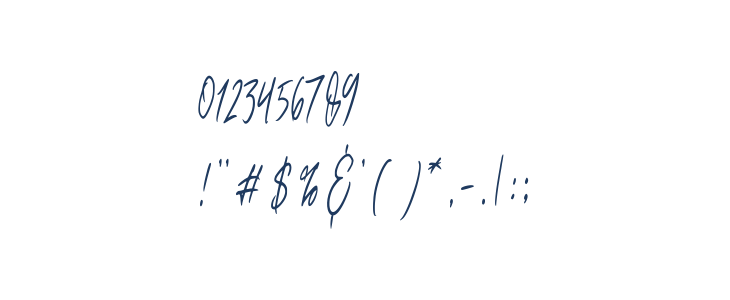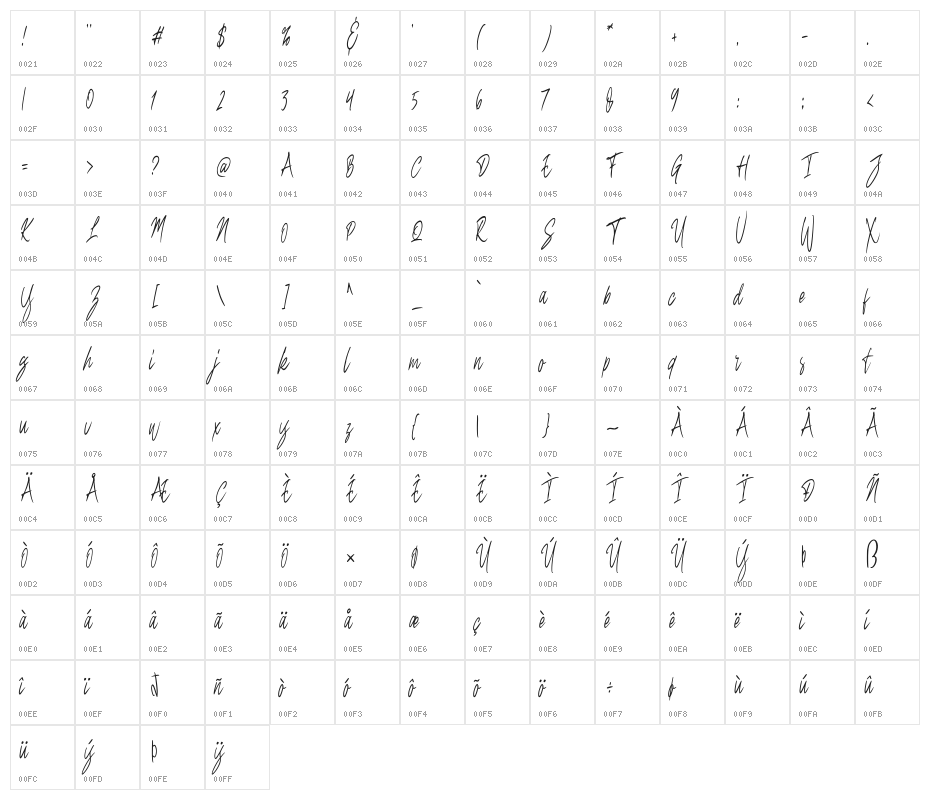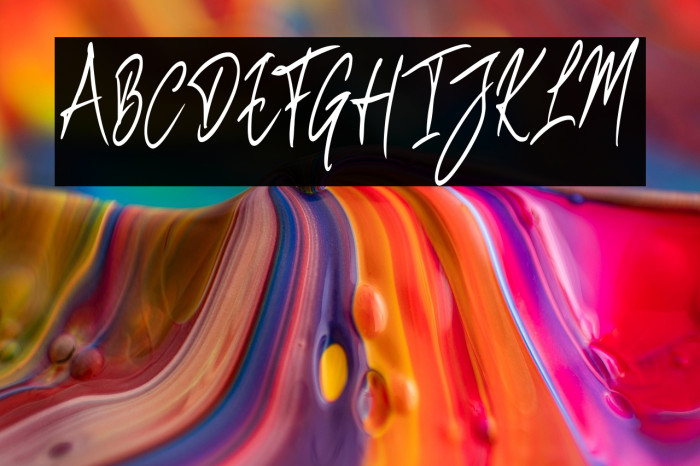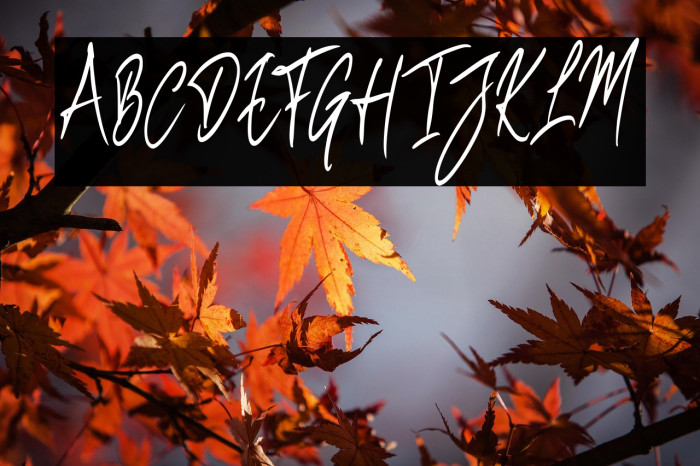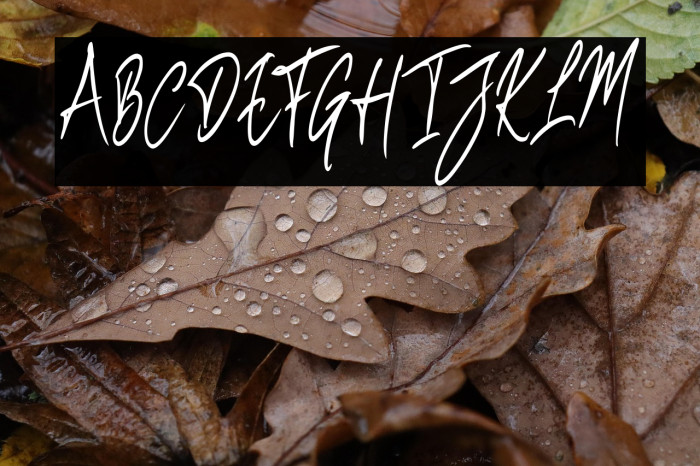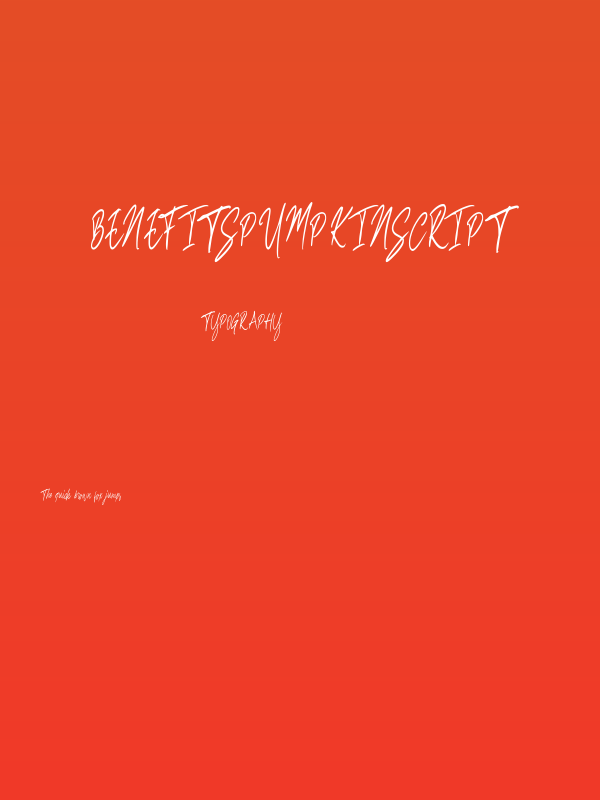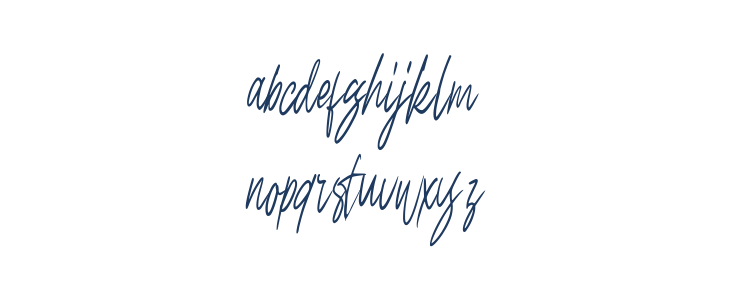
BenefitspumpkinScript Font
BenefitspumpkinScript Description
This font features a dynamic and fluid script style, characterized by its elegant and flowing letterforms. The uppercase letters exhibit a tall and slightly slanted appearance, while the lowercase letters maintain a consistent rhythm and smooth connections. The numerals are crafted with a similar fluidity, ensuring a cohesive look across all characters. Special characters are thoughtfully integrated, maintaining the overall aesthetic. The font's design exudes a sense of sophistication and creativity, making it ideal for projects that require a personal and artistic touch.
| Overall Style | Elegant and Artistic |
| Use Case | Logos, Invitations, Artistic projects |
| Proposed Projects | Ideal for wedding invitations, greeting cards, branding, and artistic projects that require a personal touch. |